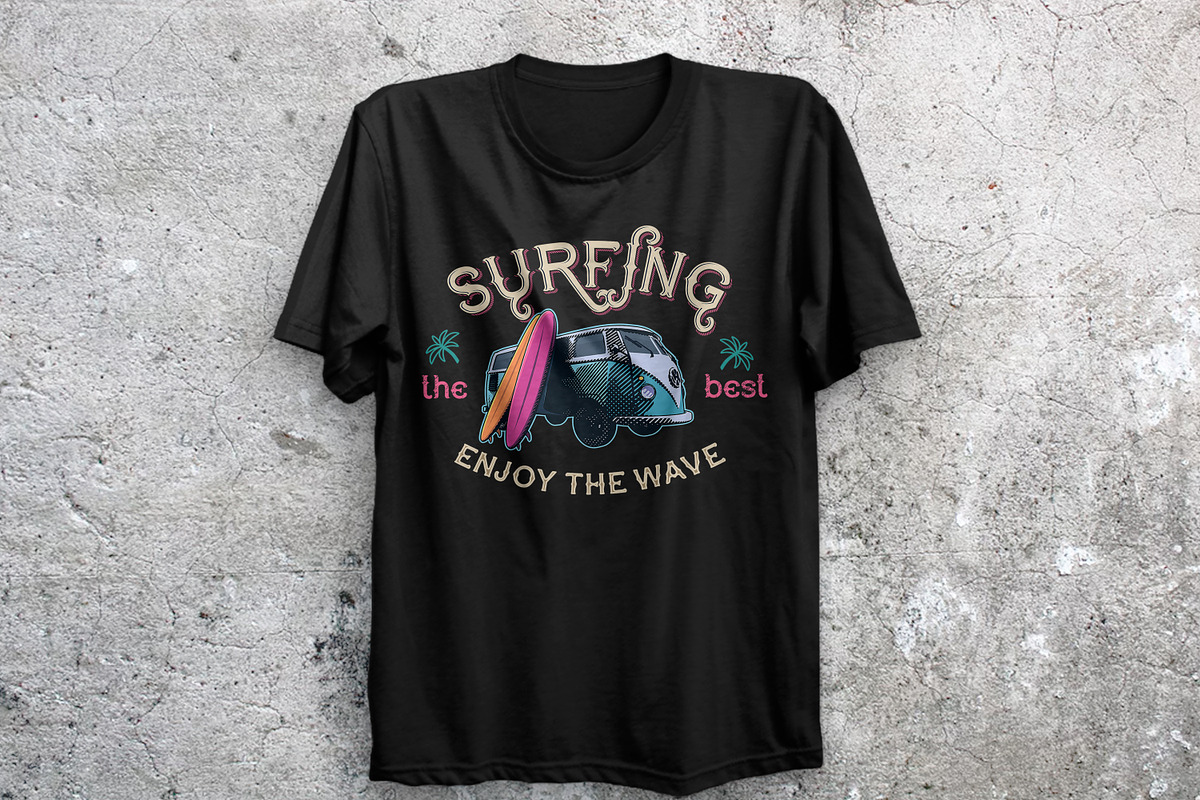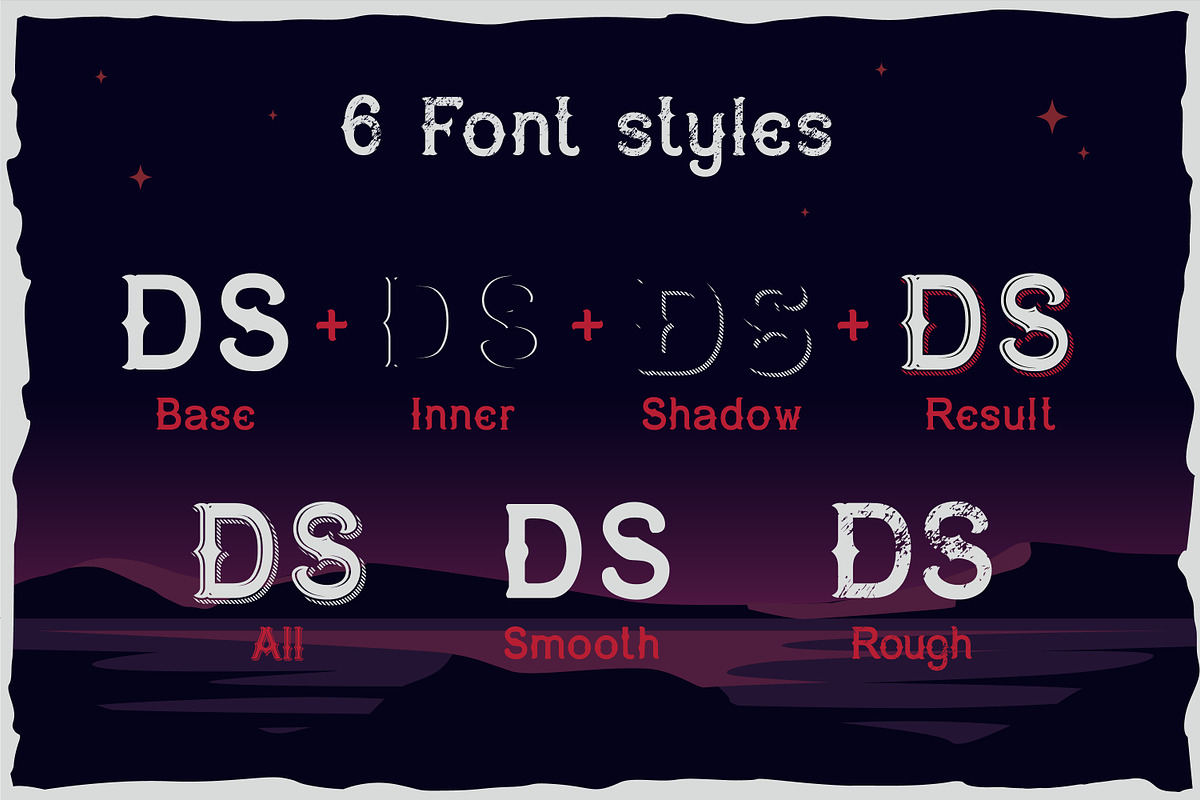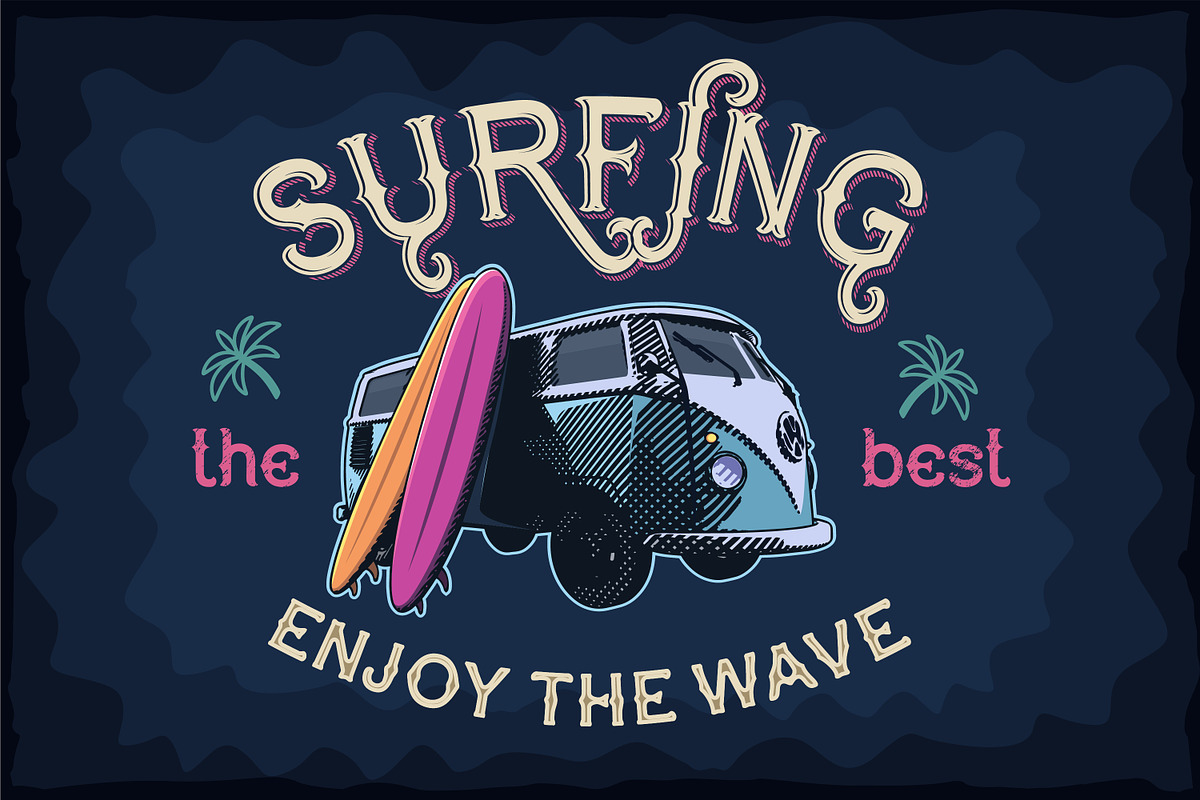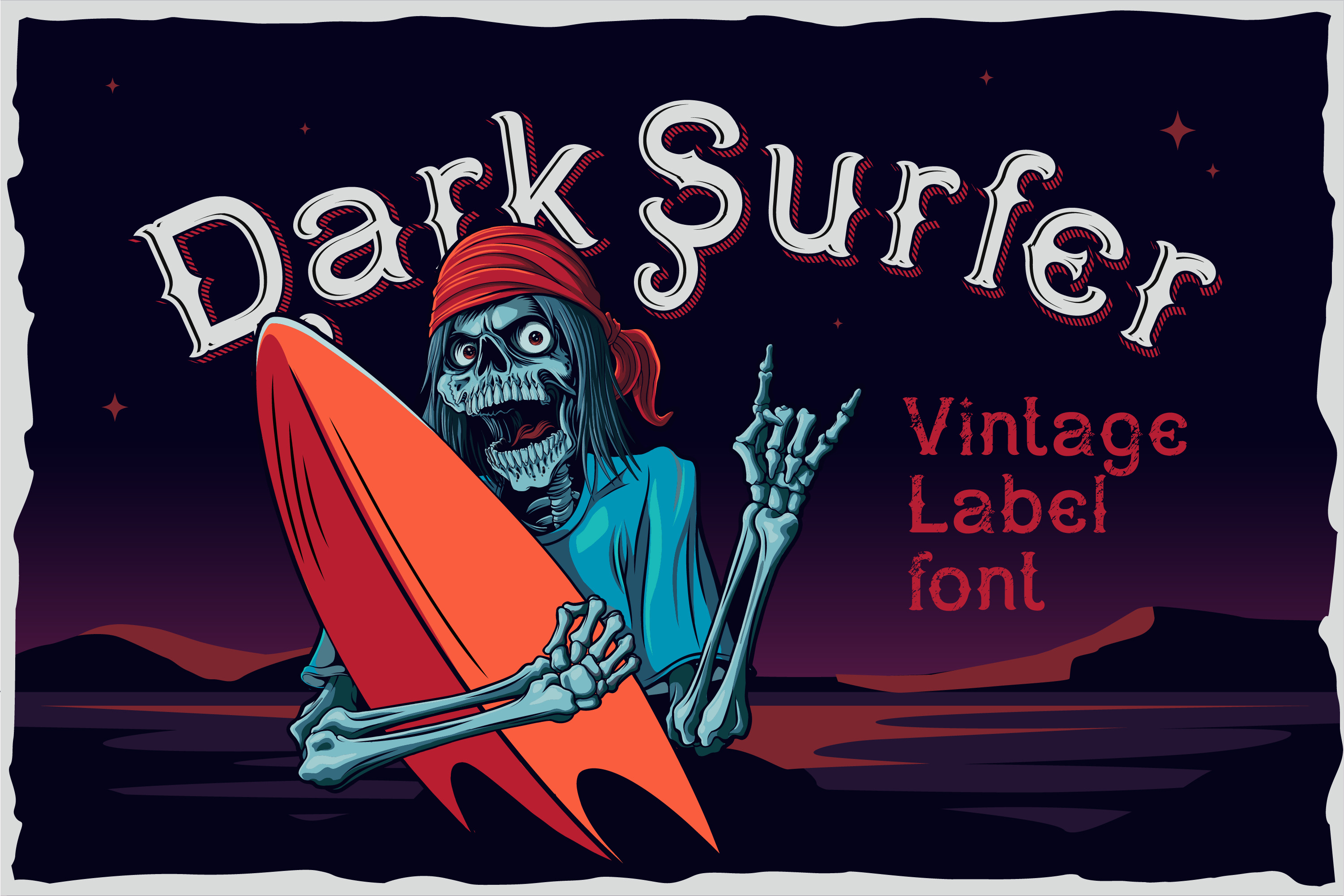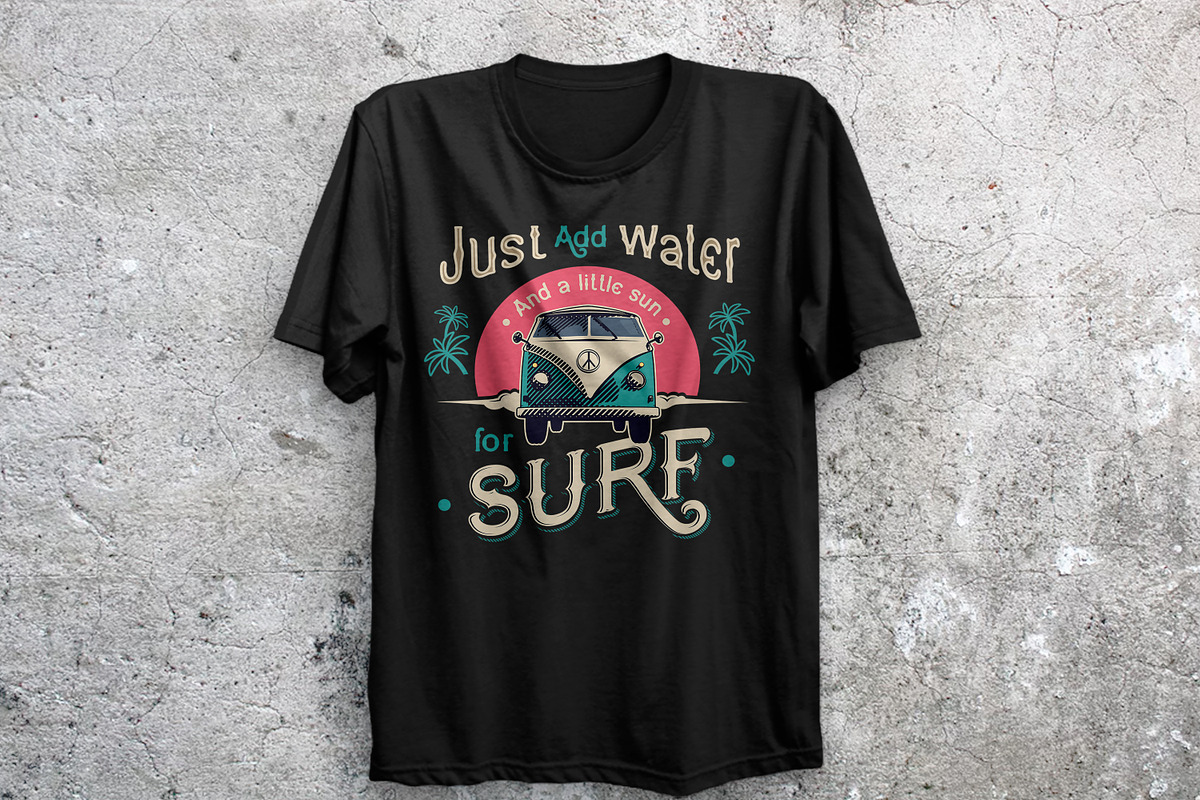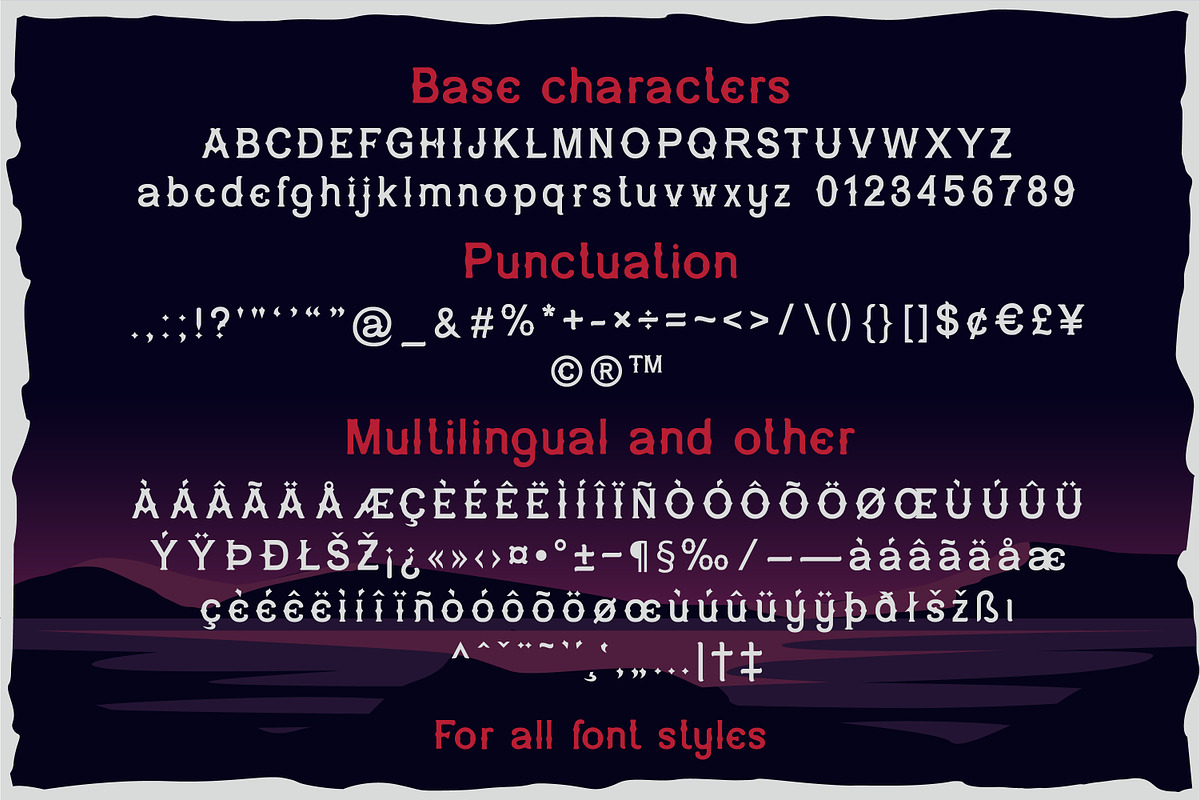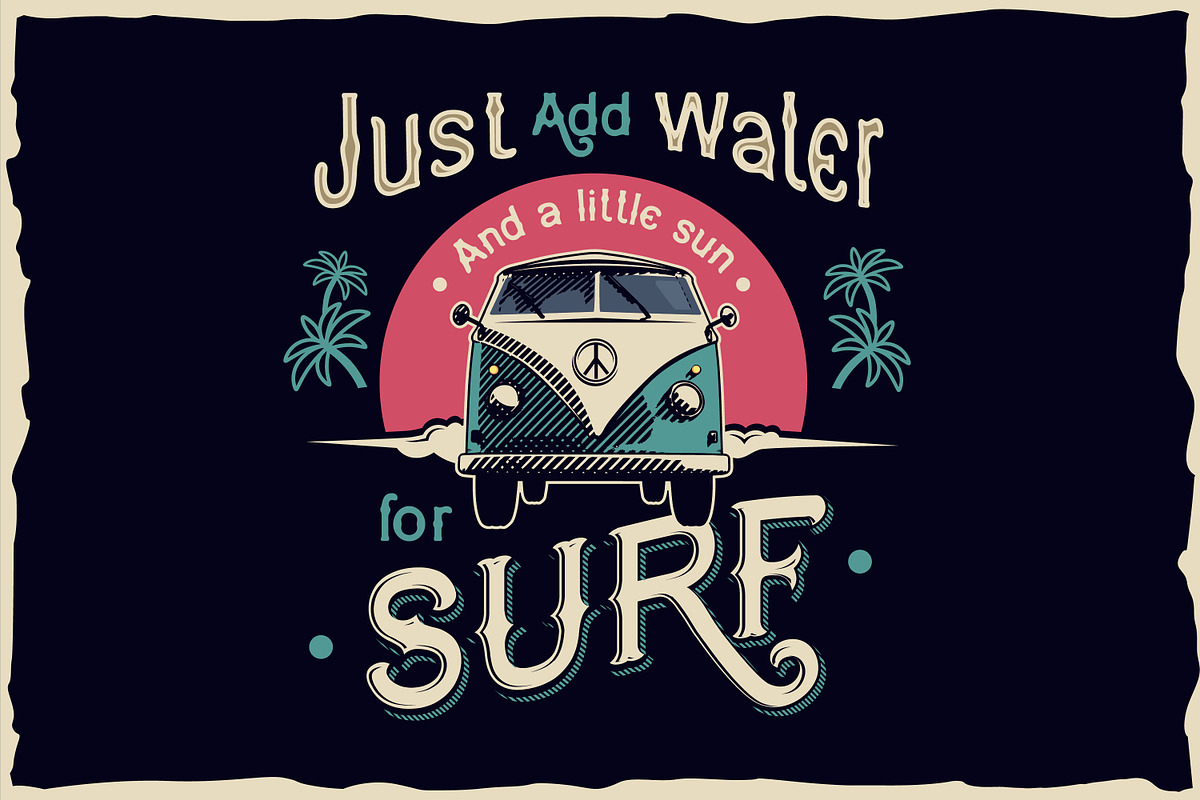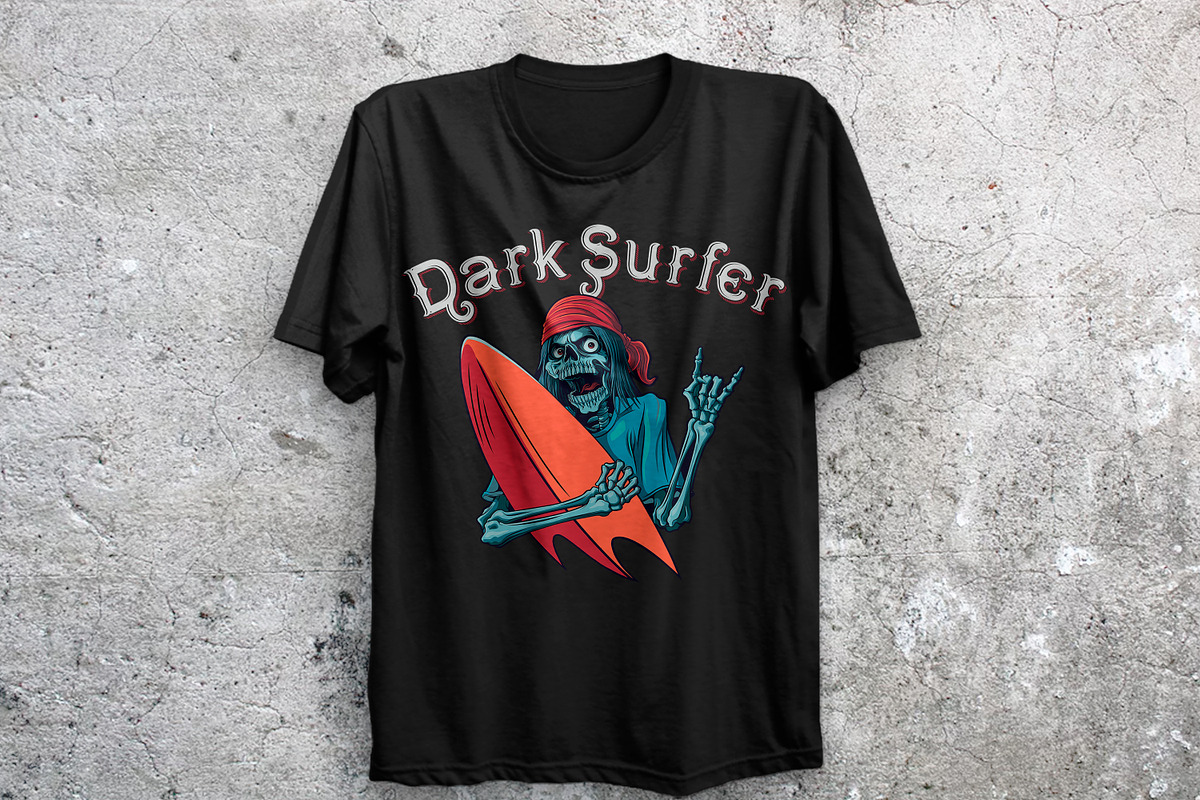
Dark surfer - vintage label font
Dark surfer. A sleek, layered, vintage-style font. It contains 6 writing styles, basic characters, numbers, punctuation and multilingual characters for all styles. Also, 3 t-shirt designs are attached as a bonus, in the following formats:AI, EPS, SVG, PNG